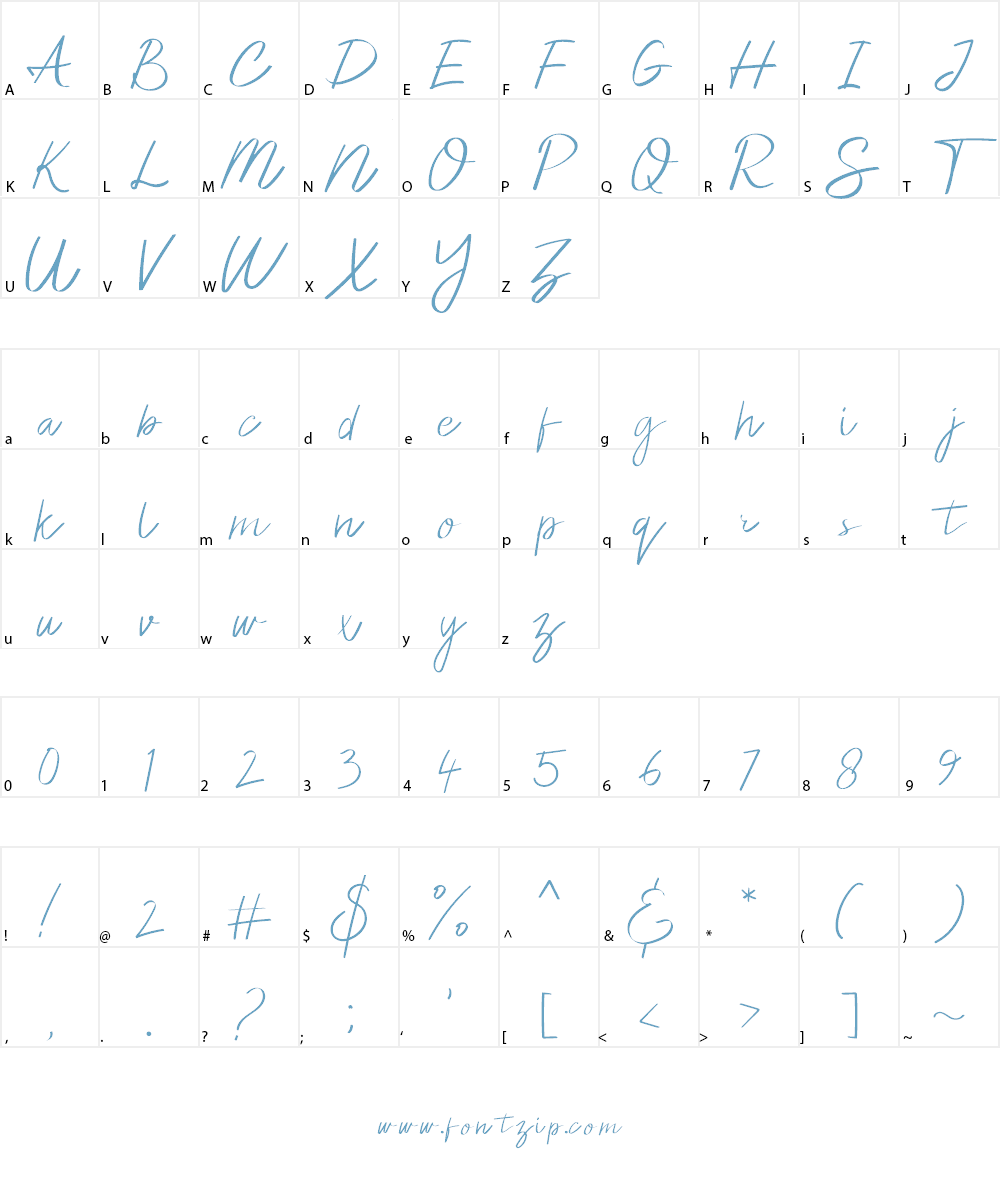
Elliana is a script font with natural handwritten made by brushpen, it’s suitable for logotype, headline, apparel, branding, invitation, thumbnail video, etc.